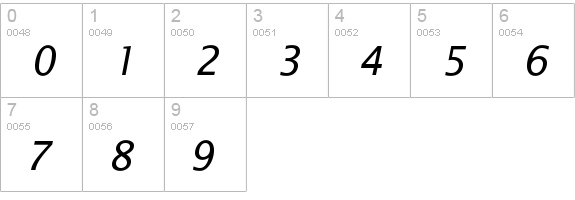
Lucida Sans Std Italic is a distinctive, italic variant in the Lucida typeface family \xE2\x80\x94 well suited to design and typography projects.
Lucida Sans Std Italic is a beautifully designed font that exudes elegance and sophistication. With its slanted style, it adds a touch of modernity to any text or design. The italicized letters flow gracefully, creating a sense of movement and dynamism. This font is perfect for projects that require a stylish and contemporary look, such as editorial design, branding, and advertising. It conveys a sense of professionalism and sophistication, making it ideal for conveying messages with impact. Best of all, Lucida Sans Std Italic is available for free download at FontsMarket.com. Whether you're a designer looking to enhance your projects or an individual looking to add a touch of style to your documents, this font is a great choice. Download it today and elevate your designs with the sleek and elegant Lucida Sans Std Italic font.